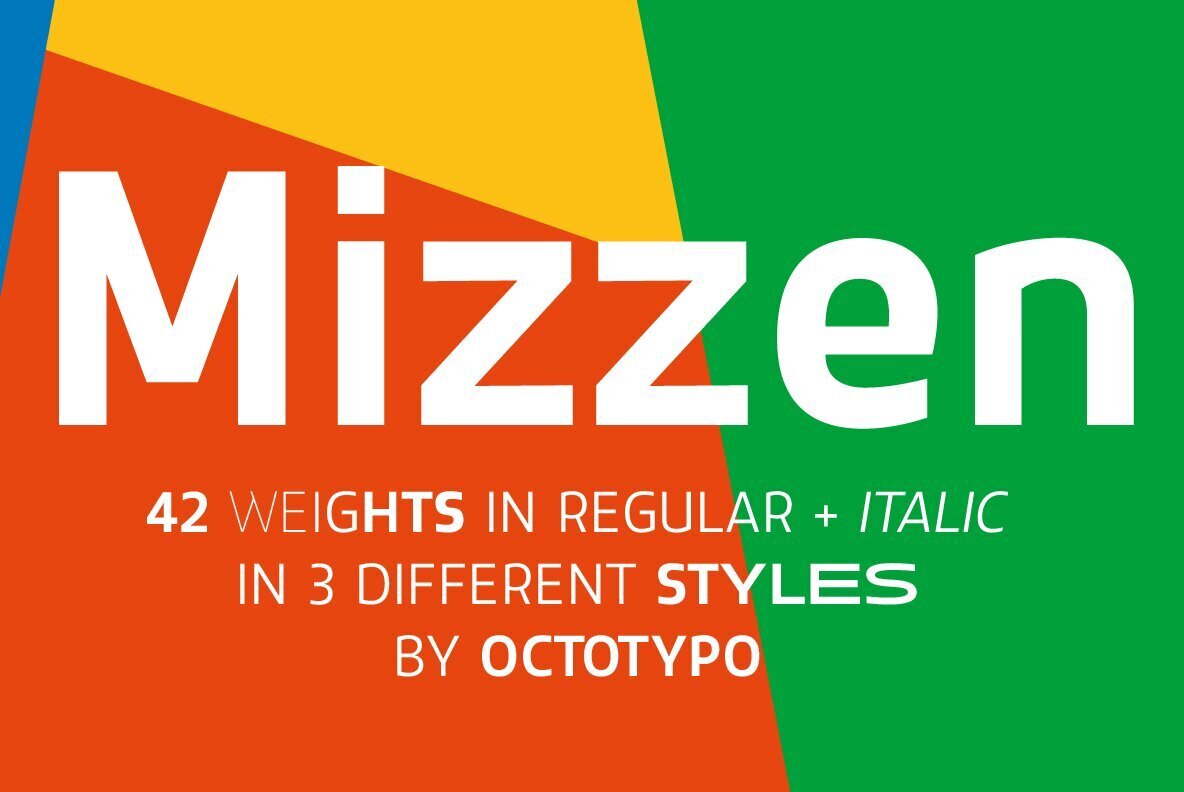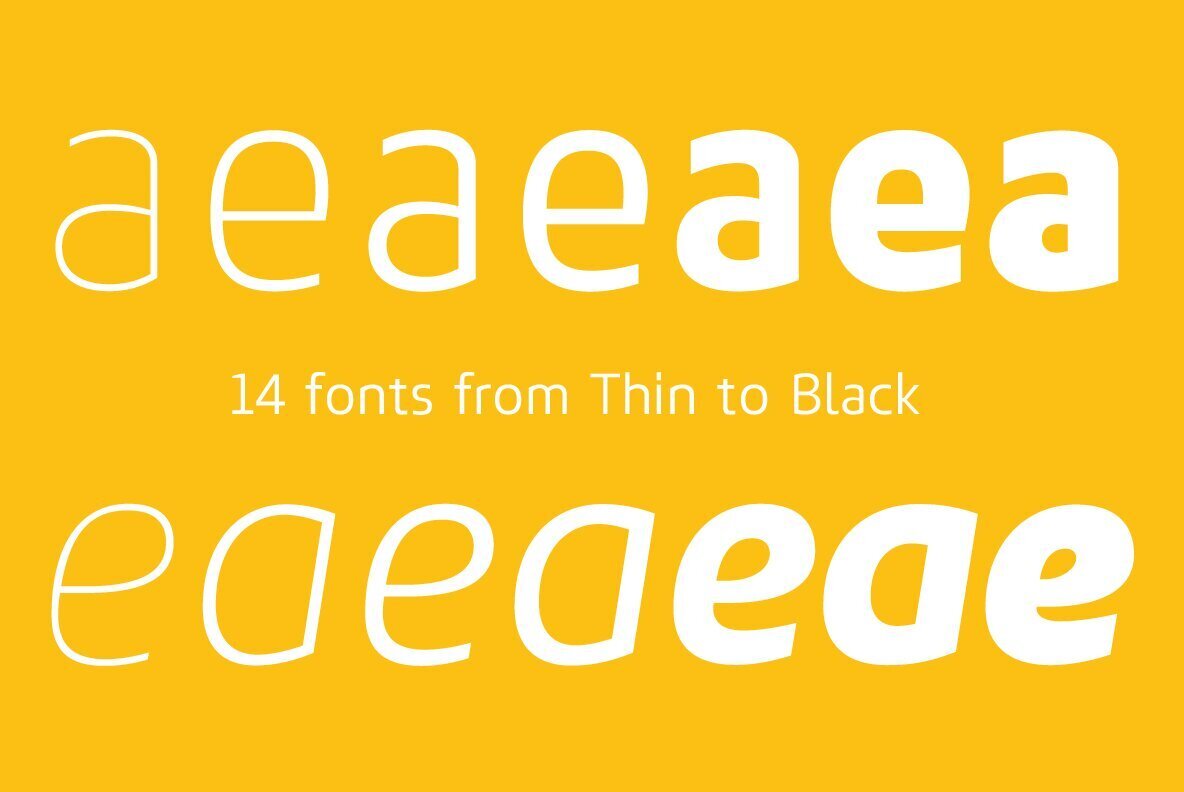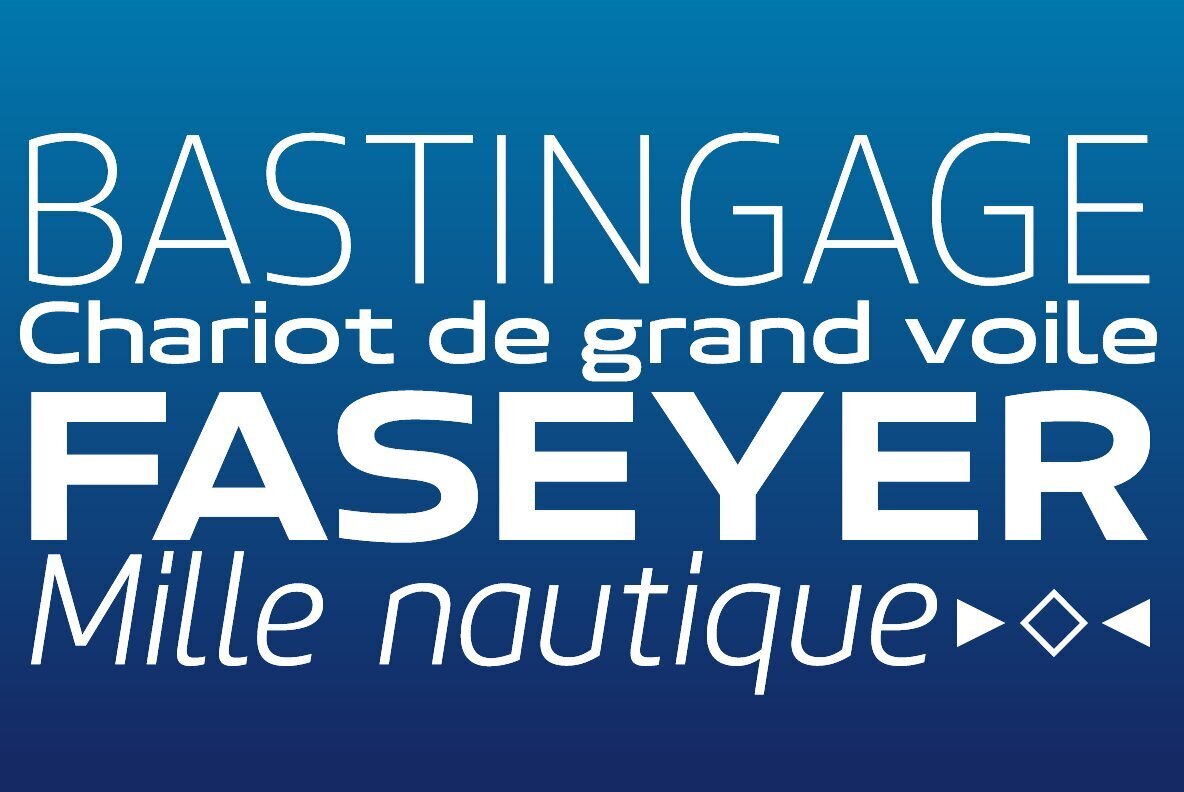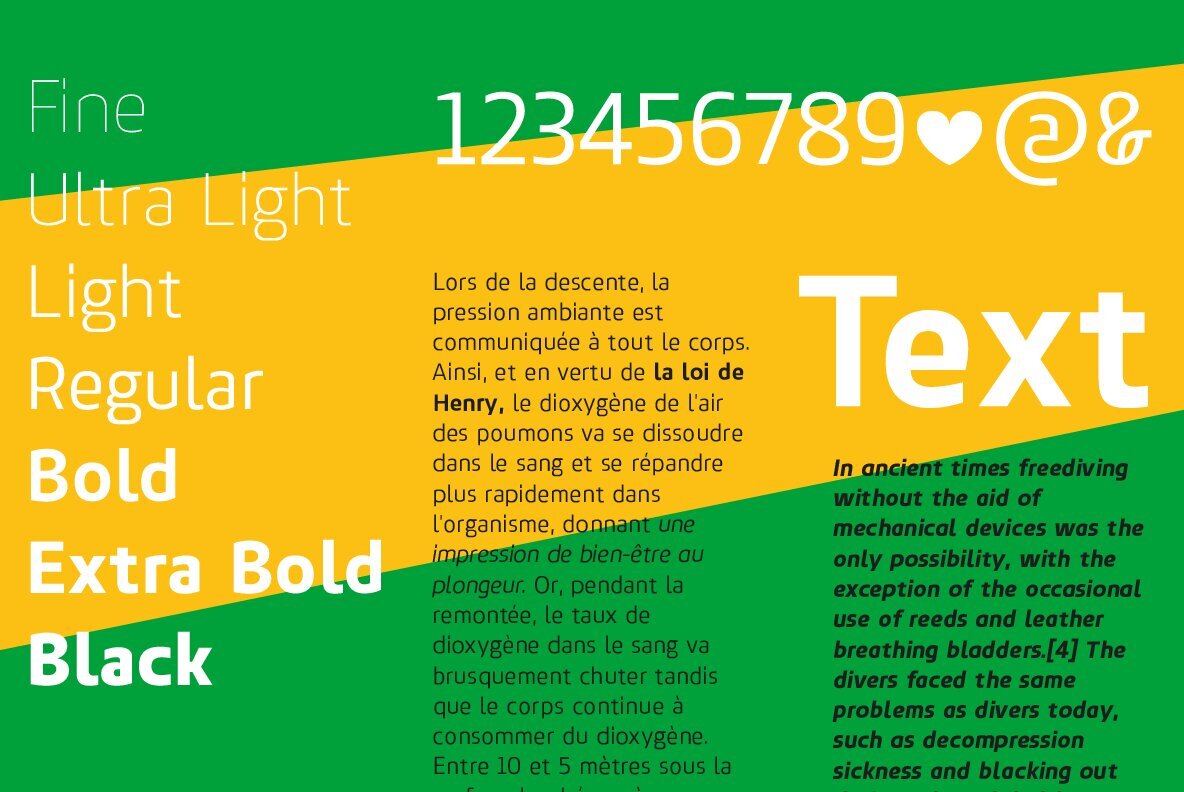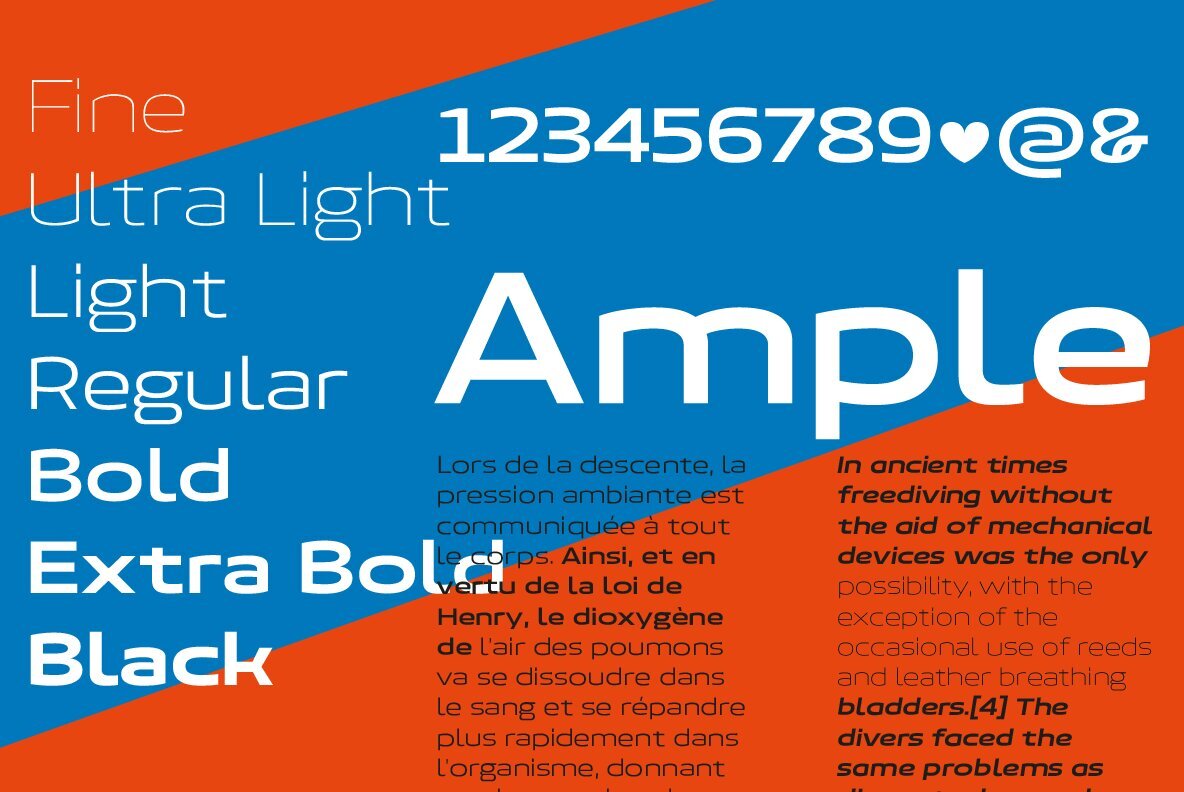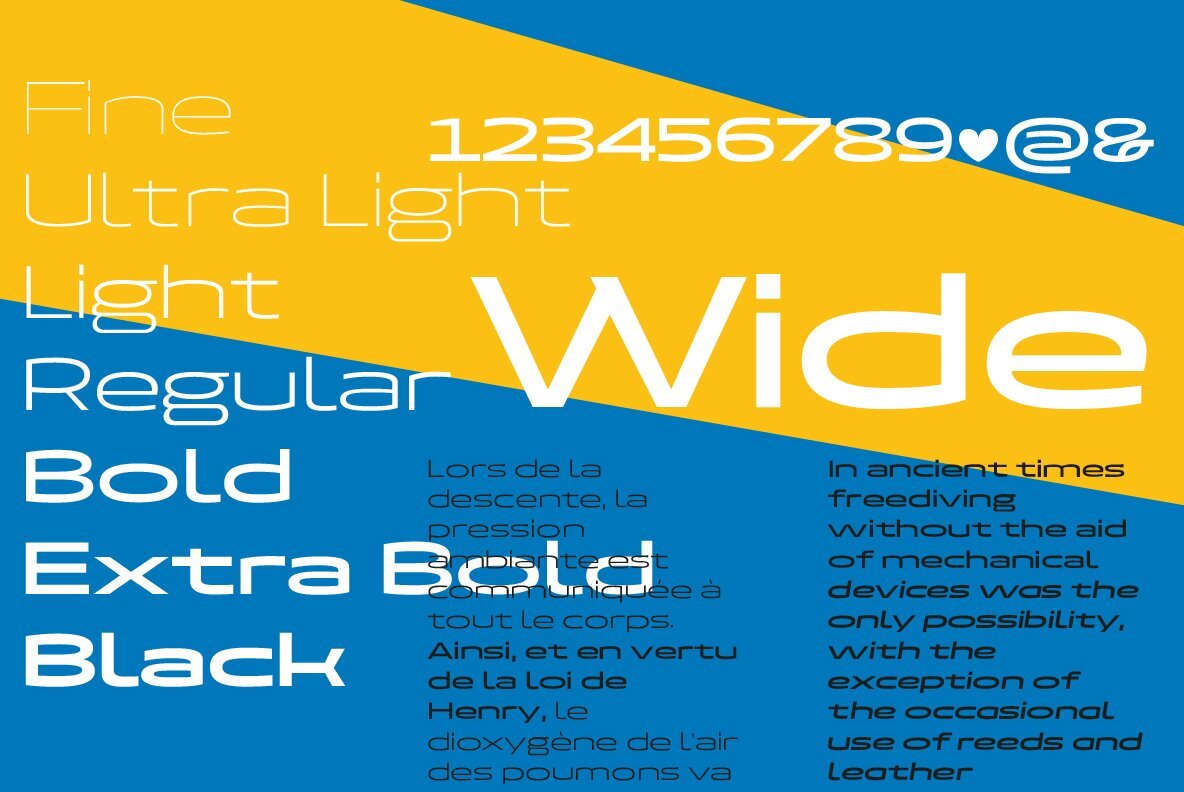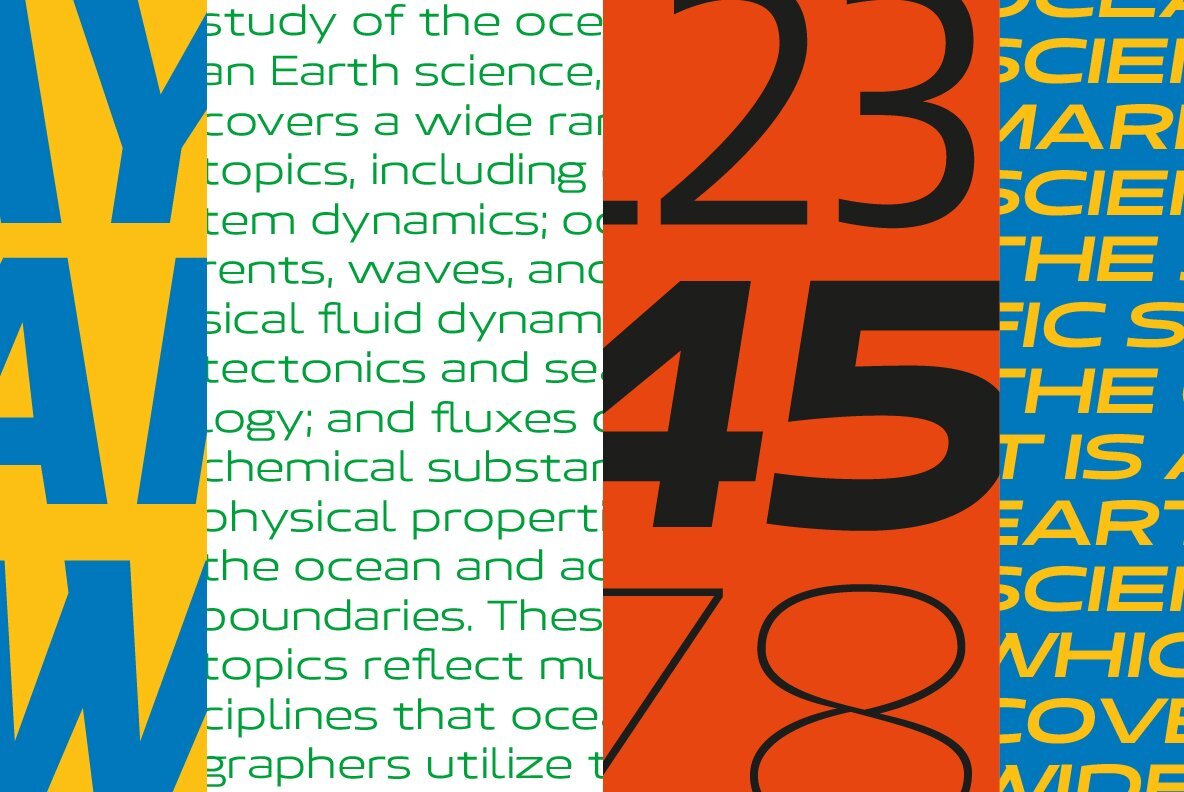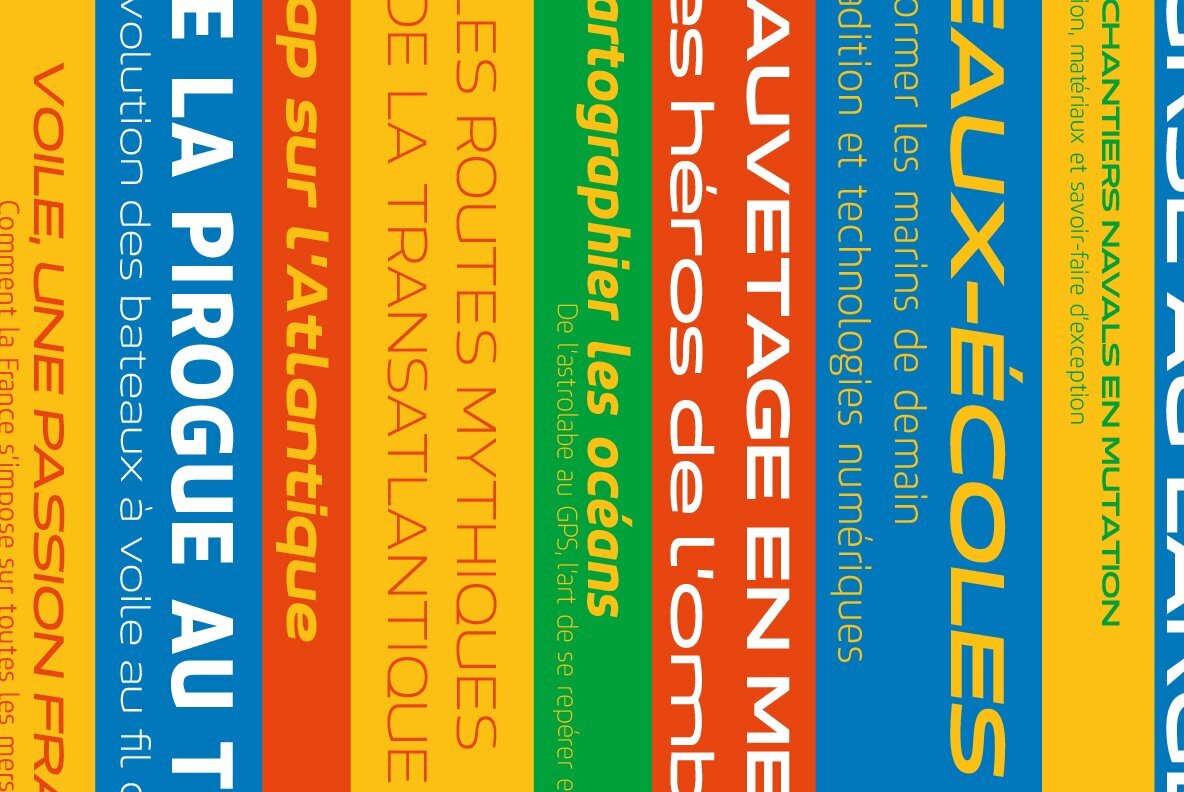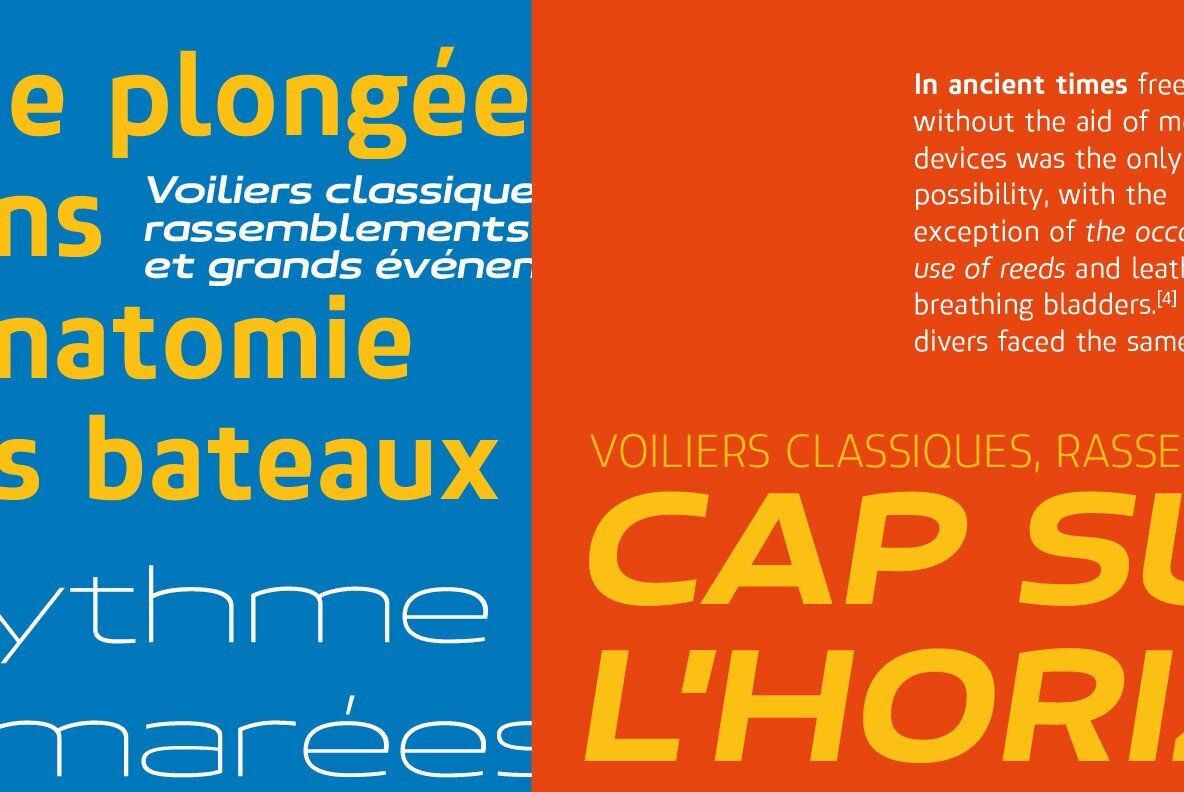
Mizzen Font
Mizzen is a sans serif font designed with the precision of a well-built hull and inspired by the guiding strength of a ship’s mizzen mast. Featuring sturdy stems, open apertures, and a generous x-height, this typeface maintains clarity across all scales—from prominent dockside signage to small interface labels. Its contours evoke the feel of sea-smoothed stone, blending tight rhythm with breathable spacing. Mizzen ensures fast-setting copy and impactful headlines, supporting both bold identity work and readable wayfinding. Long passages remain comfortable and glare-free, offering brands a reliable, approachable presence. Designed for versatility, Mizzen is available in multiple weights and styles, providing consistent alignment for every project.Mizzen Sans Serif Typeface